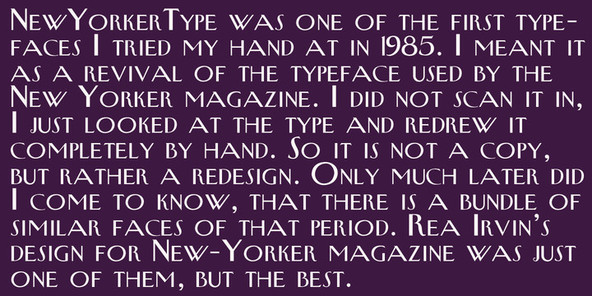
New Yorker Type Font
New Yorker Type was one of the first typefaces I tried my hand at in 1985.
I meant it as a revival of the typeface used by the New Yorker magazine. I did not scan it in, I just looked at the type and redrew it completely by hand.
So it is not just a copy, but rather a redesign. Only much later did I come to know, that there is a bundle of similar typefaces of that period. Rea Irvin’s design for New-Yorker magazine was just one of them, but the best.